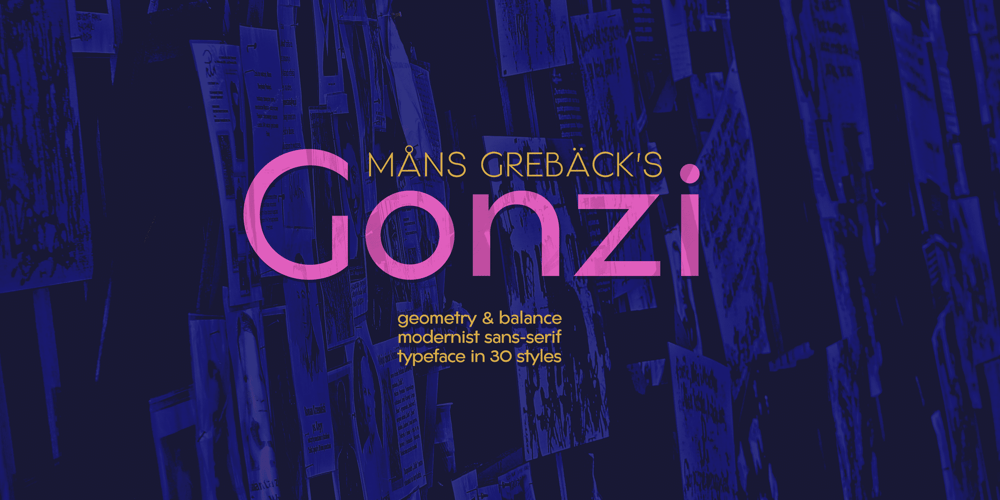
Gonzi Font Family was designed by Måns Grebäck and published by Mans Greback. Gonzi contains 32 styles and family package options. Gonzi is a geometric sans-serif typeface in 30 styles. Its circular lowercase letters and large, expressive capitals combine to create a modern, clean typesetting with a distinct personality; all the while keeping accessible and legible.Gonzi consists of five weights, each one as narrow, medium and wide: Thin, Light, Regular, Bold, BlackCondensed, Medium, ExtendedEach one of font styles is also provided as Italic, totalling 30 high-quality styles. Also includes a variable font! Only one font file, but the file contains multiple styles. Use the sliders in Illustrator, Photoshop or InDesign to manually set any weight and width. This gives you not only the predefined styles, but instead more than a thousand ways to customize the type to the exact look your project requires. More info about Variable Fonts: https://mansgreback.com/variable-fontsThe font is built with advanced OpenType functionality and has a guaranteed top-notch quality, containing stylistic and contextual alternates, ligatures and more features; all to give you full control and customizability. It has extensive lingual support, covering all Latin-based languages, from North Europe to South Africa, from America to South-East Asia. It contains all characters and symbols you’ll ever need, including all punctuation and numbers.